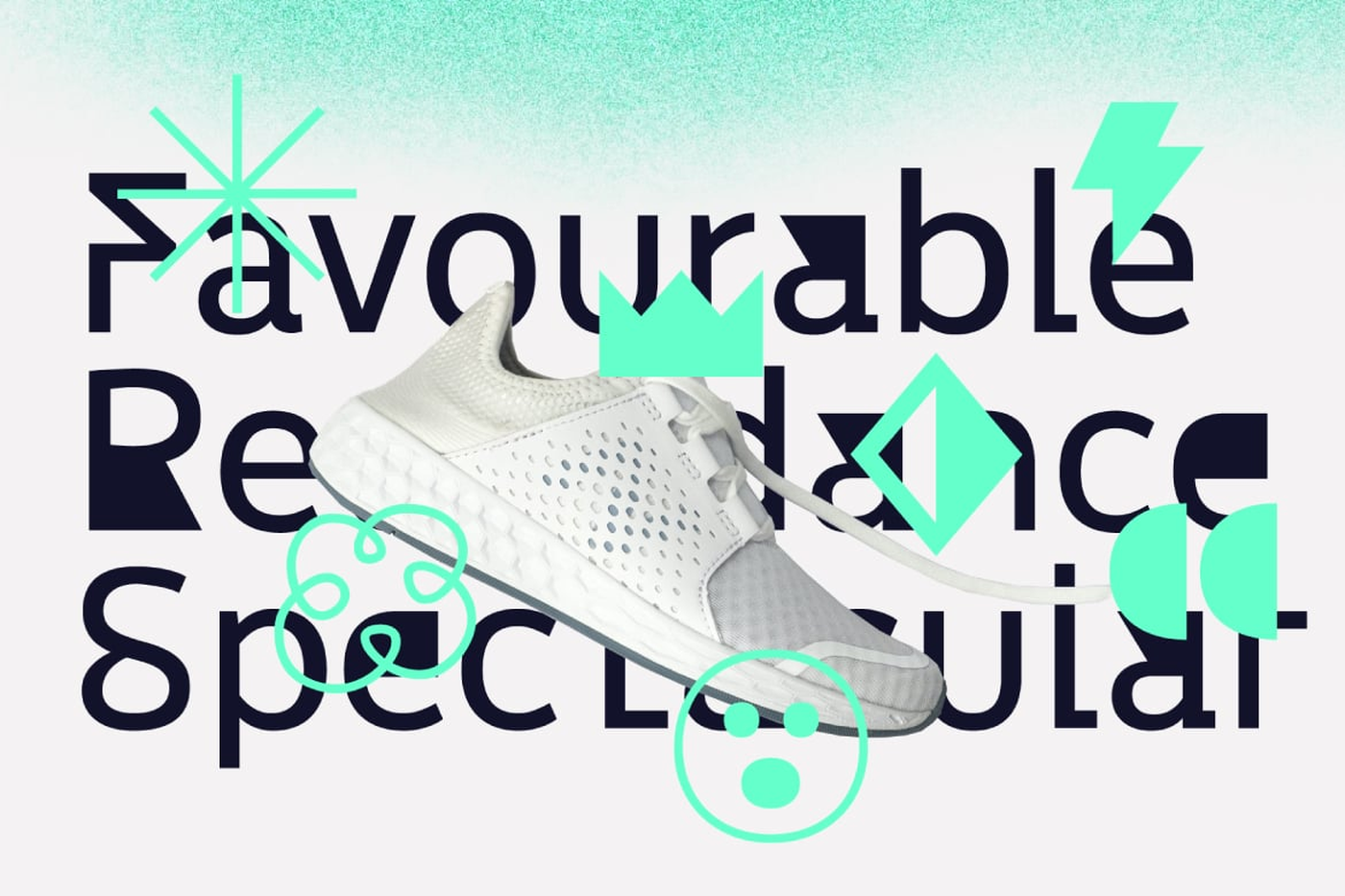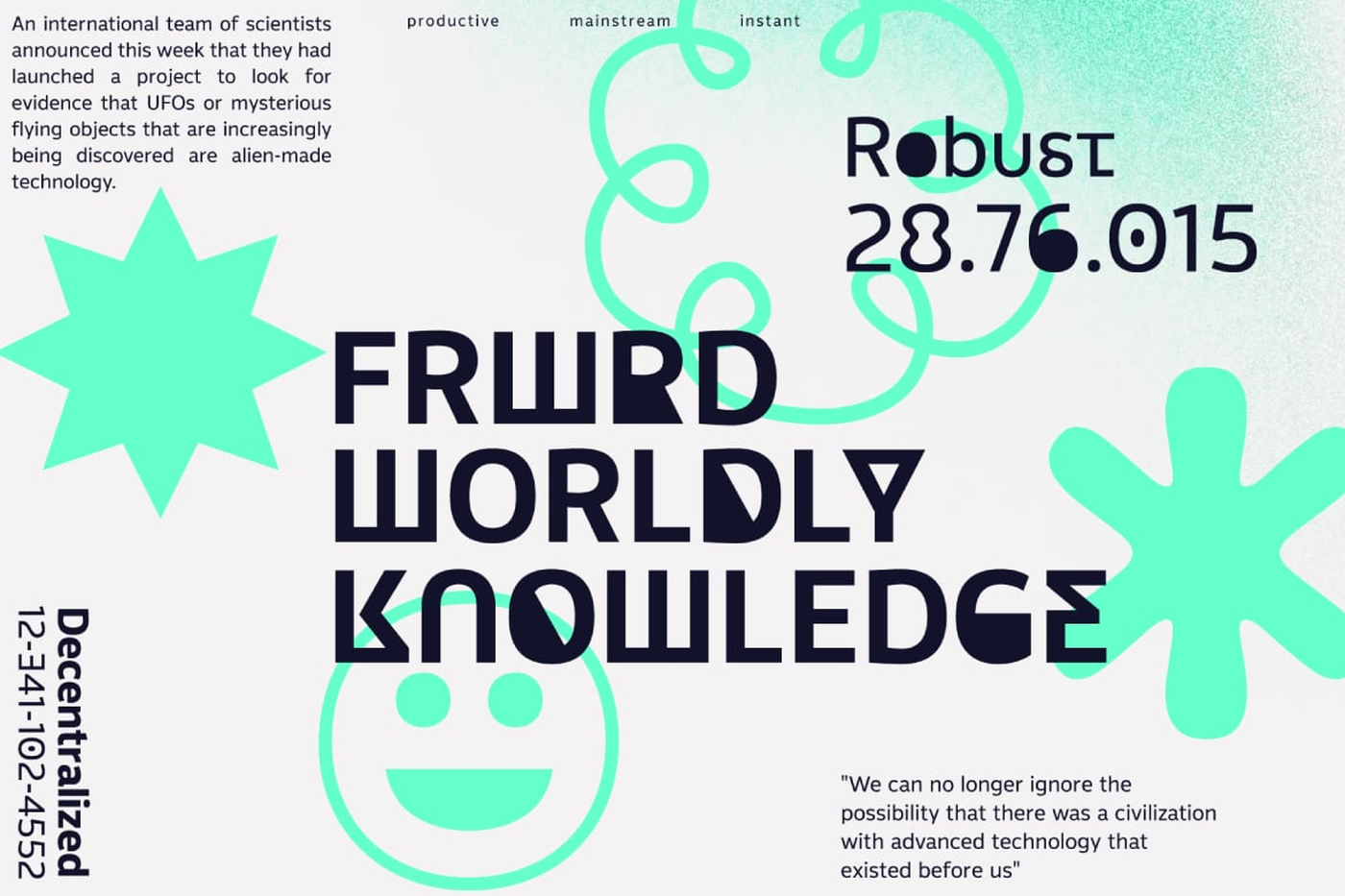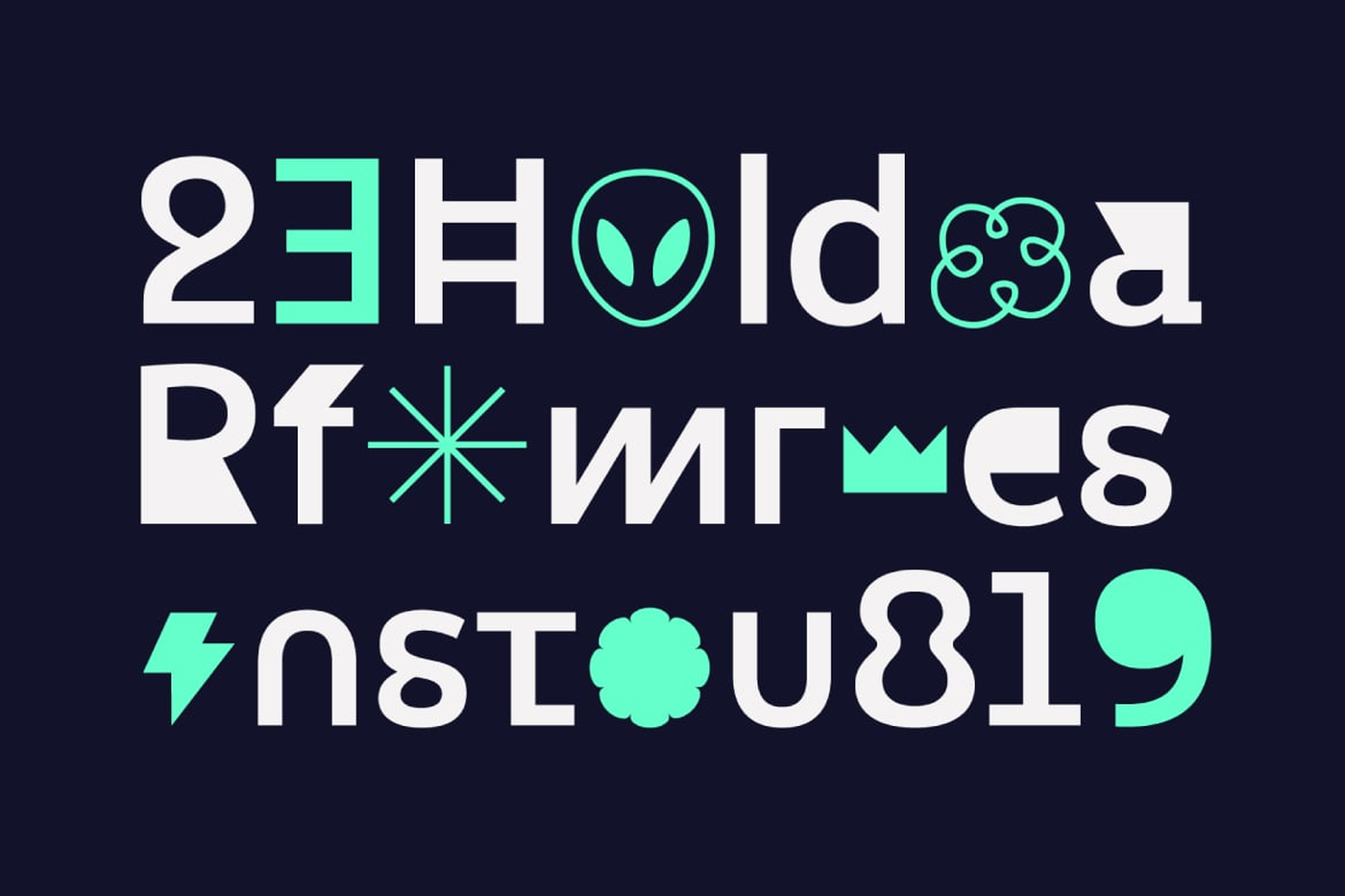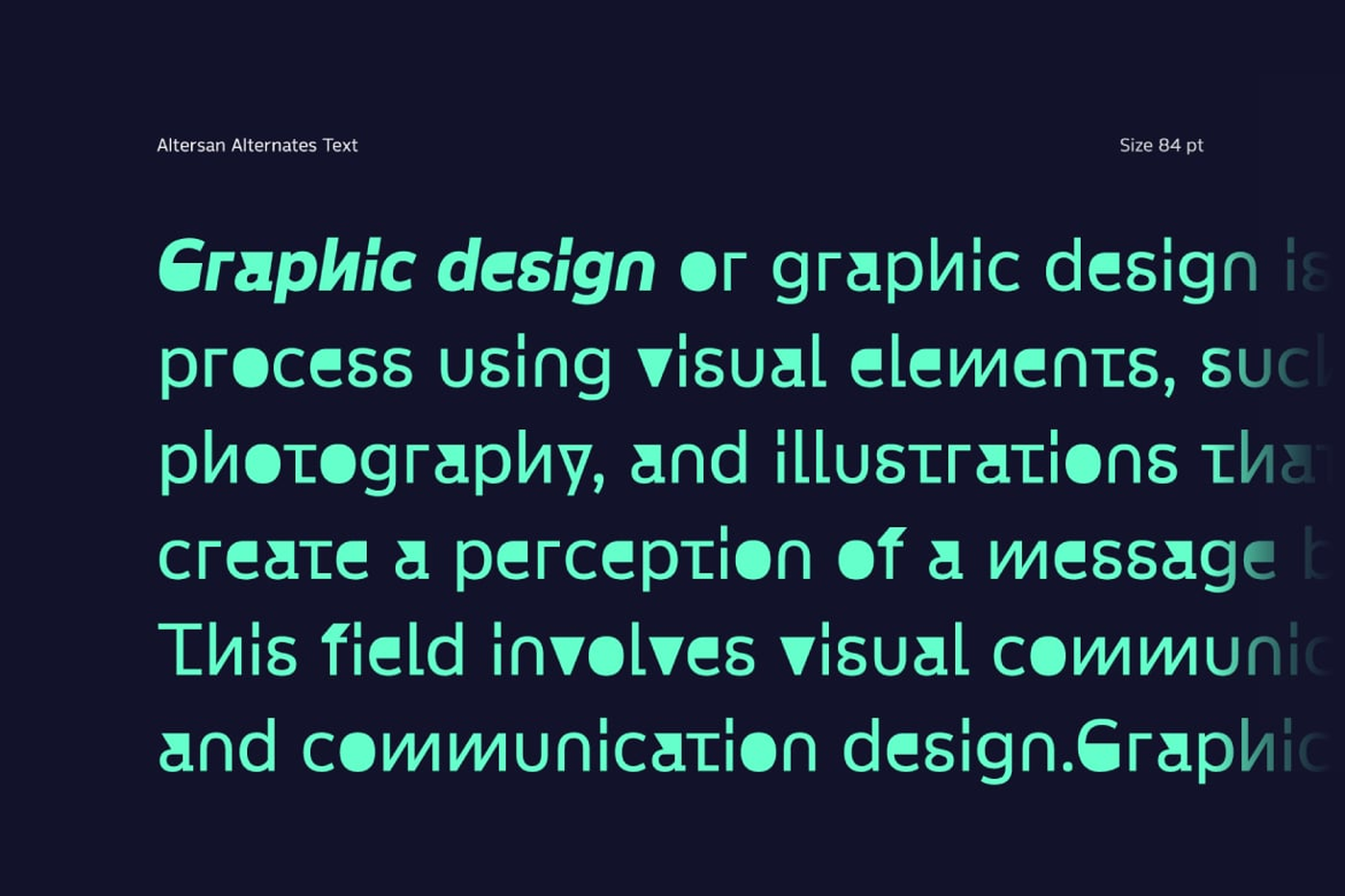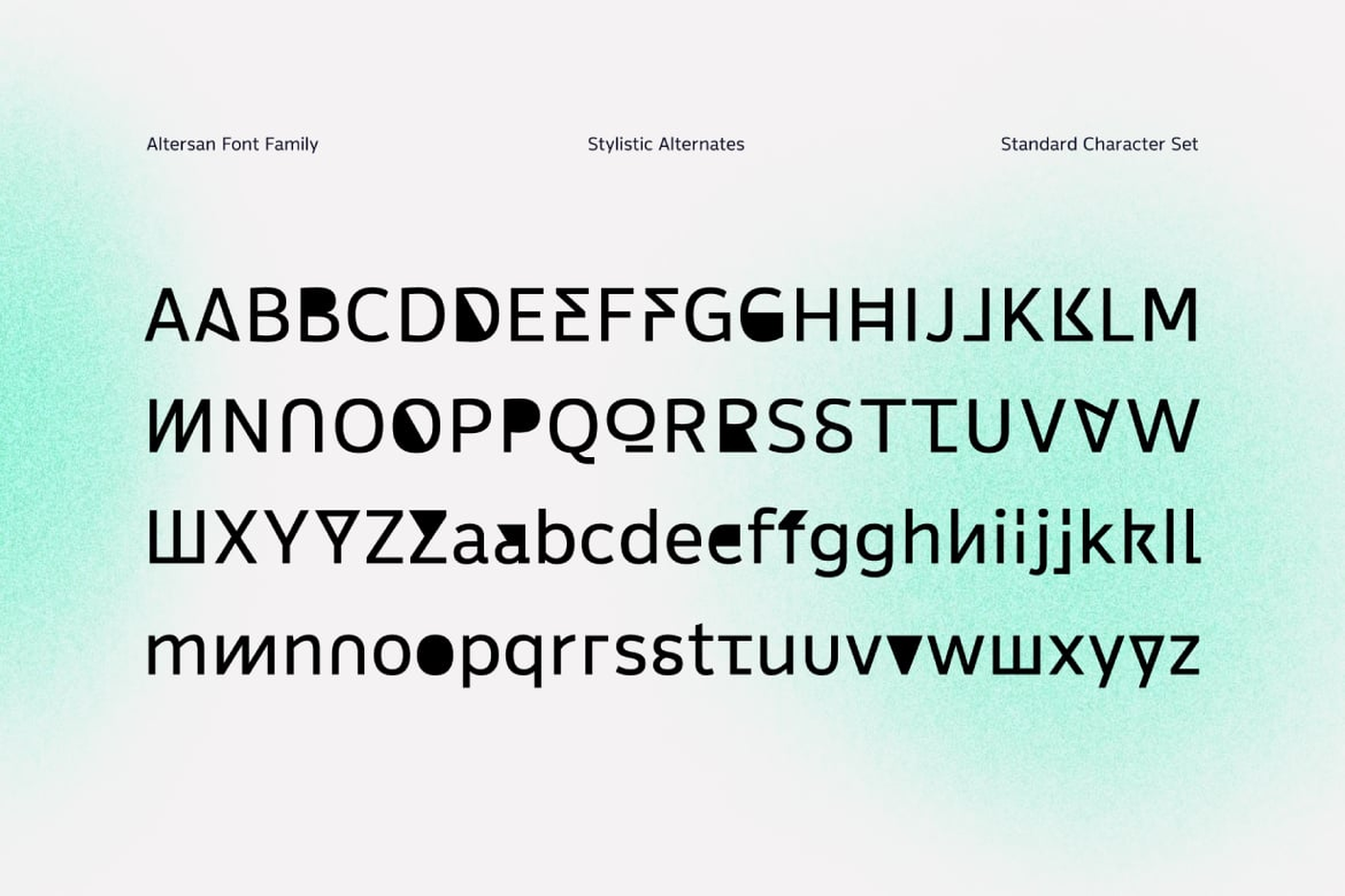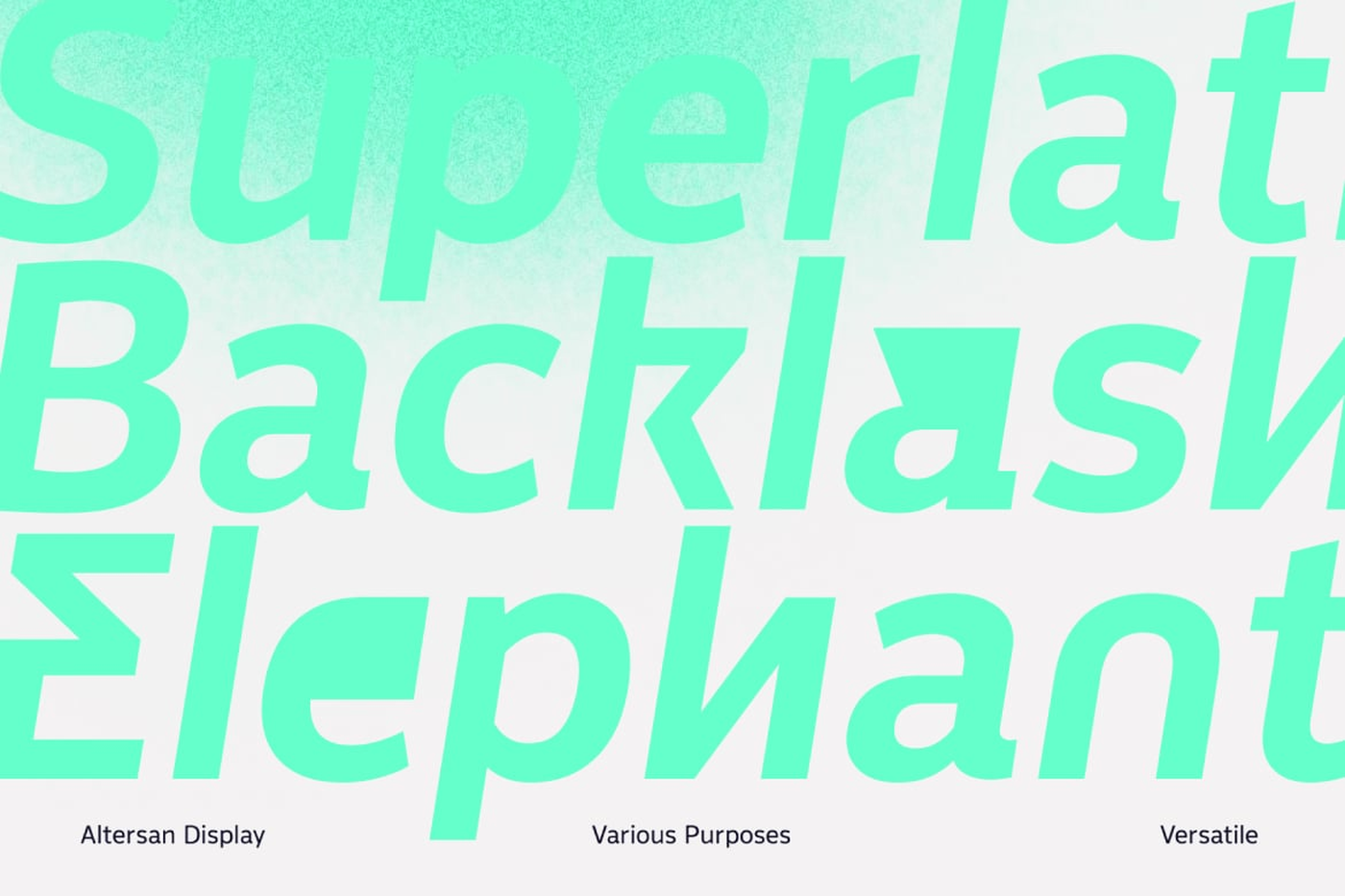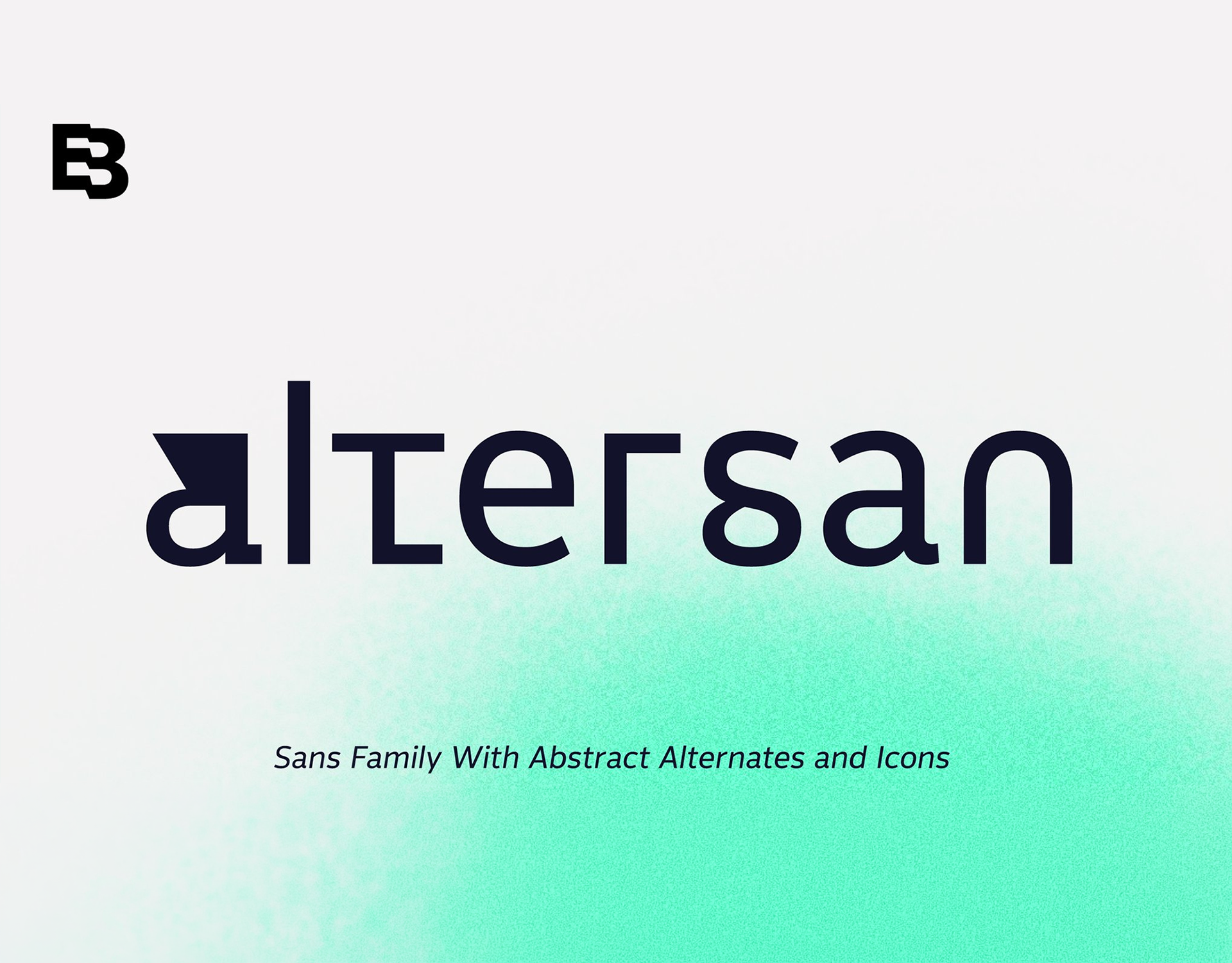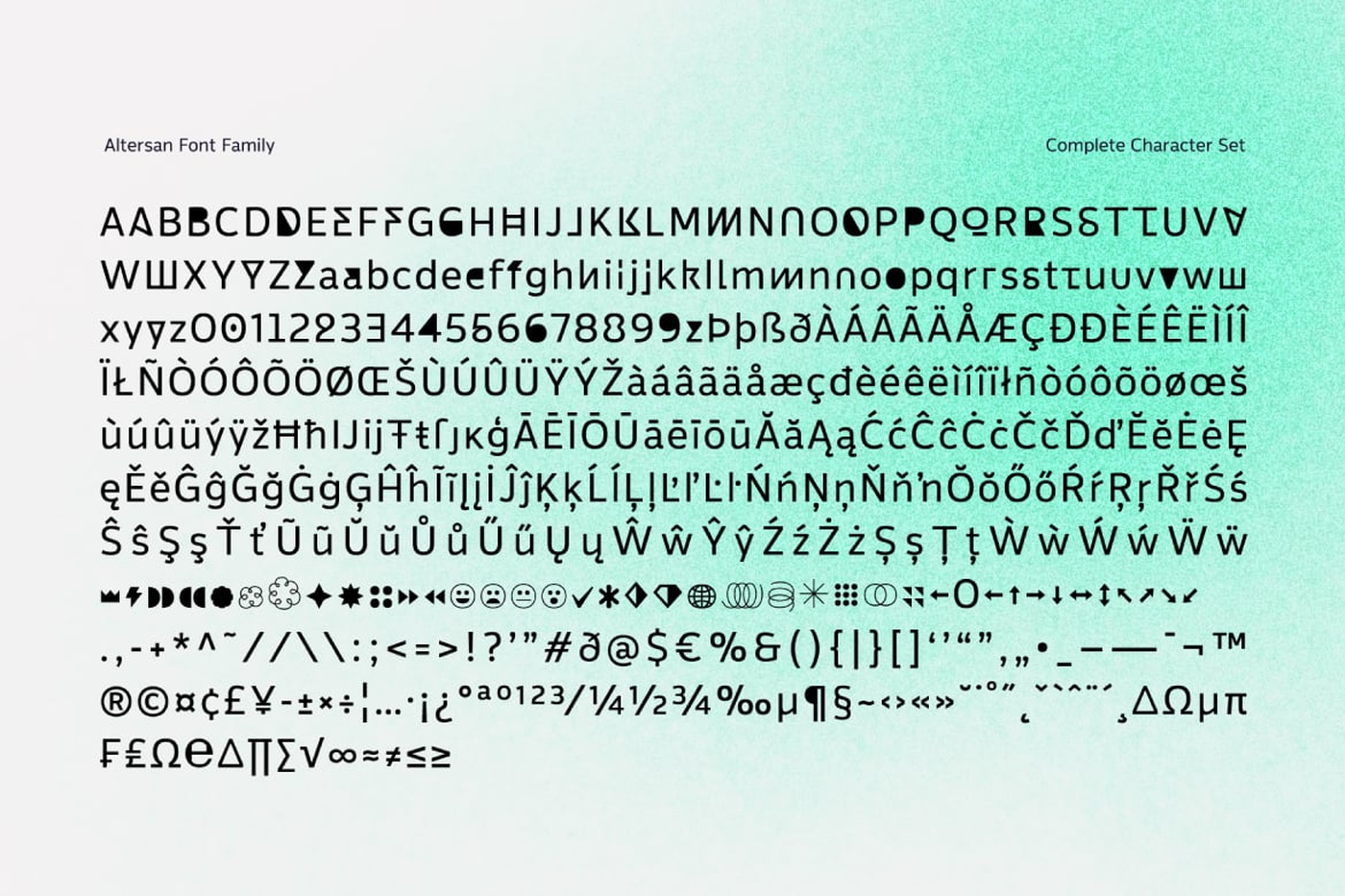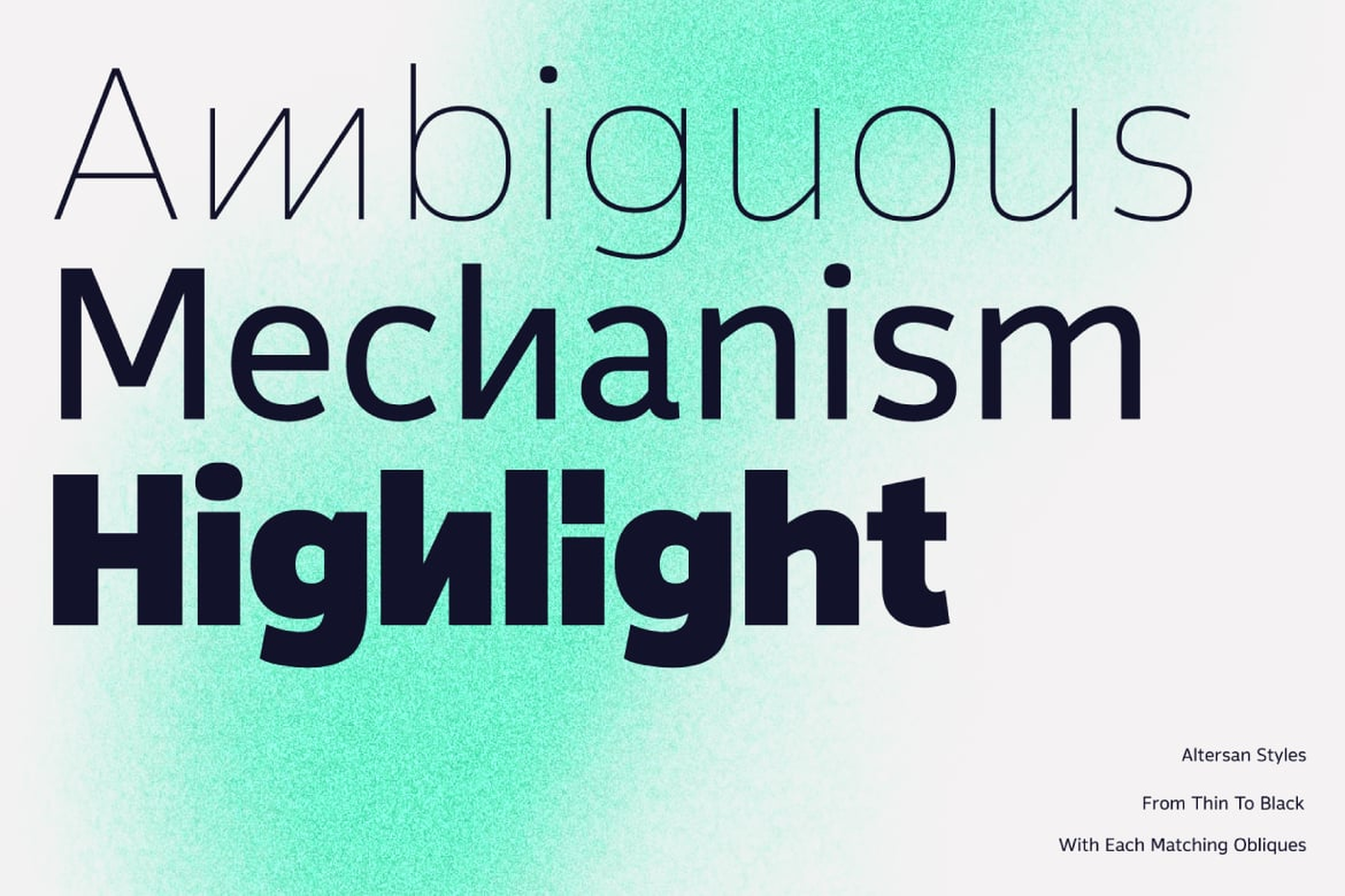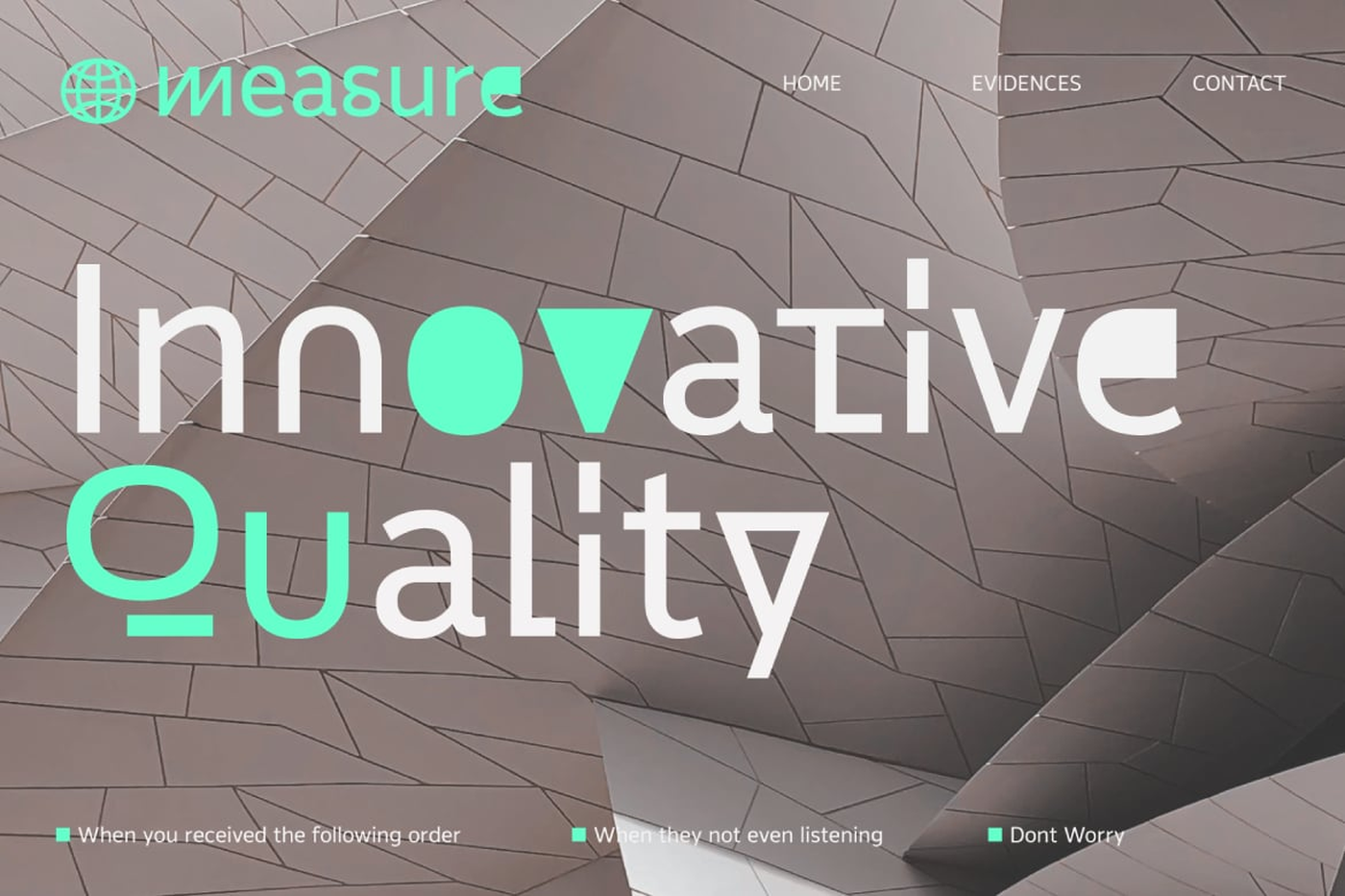
Altersan - Sans Serif Font Family
Altersan is sans serif font family with extraordinary abstract alternative glyphs and icons. The initial style is humanist grotesk sans which fit for various design purposes. The complete family consist of 8 styles from thin to black with each matching obliques. Its contain 477 glyphs which covered broad latin languages. The alternative glyphs can be accessed by activating the opentype feature; Stylistic Alternates and also by opening the glyphs panel.